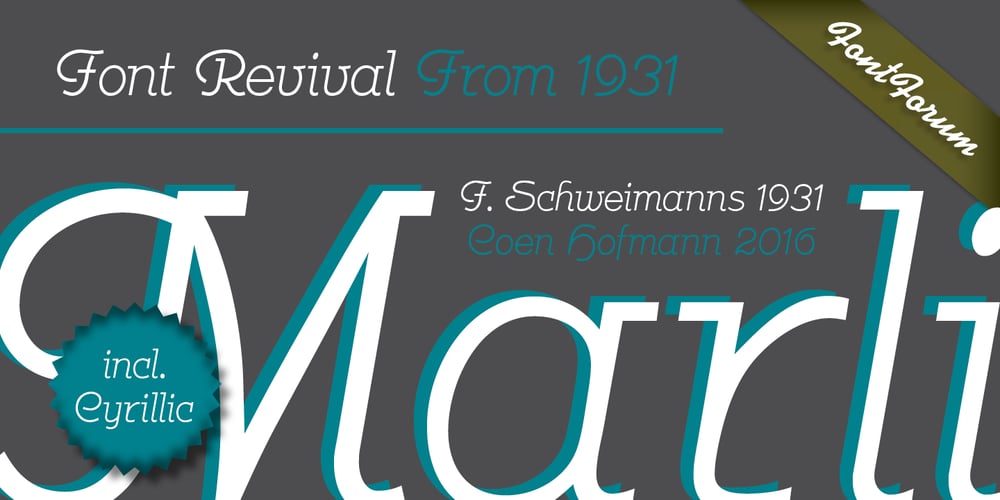
Marli Font Family was designed by Coen Hofmann and published by URW Type Foundry. Marli contains 1 styles and family package options. Marli is an adaption of a face designed by F. Schweimanns and issued by the Stempel Foundry from 6 to 48 point, as “Korso”, in 1913. In 1936 the American Intertype issued their version for the line composing machines in 12 and 14 point as “Camera”. It is a very suitable type face for personal stationery, announcements, greeting cards and the like. The font is updated with a full Open Type character set, while also a Cyrillic has been added.